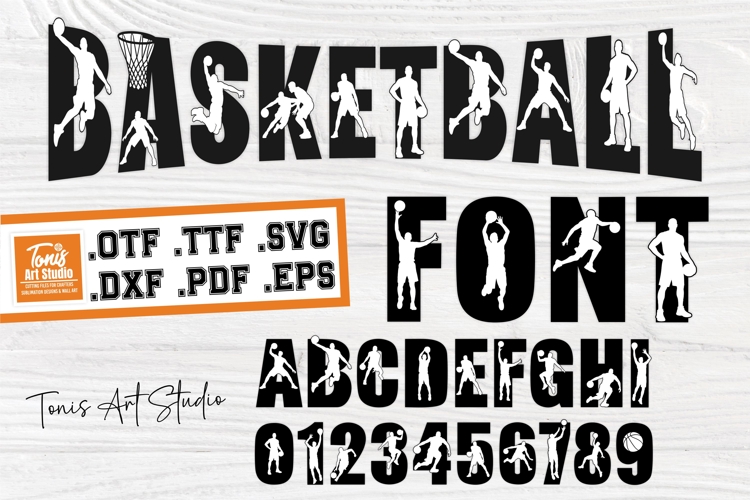
Basketball Font, Sport Alphabet with Player Silhouettes
A Dynamic Basketball Alphabet Font SVG OTF, inspired by the energy, motion, and excitement of the game. This bold athletic font features strong block letters filled with basketball player silhouettes in action, creating a powerful and sporty look. Perfect for basketball teams, kids room decor, sports apparel, jerseys, birthday signs, wall art, posters, and Cricut or Silhouette projects. The font is easy to use, highly readable. The digital download includes OTF and TTF installable fonts along with SVG, DXF, EPS, and PDF cut files.
✔ Basketball Alphabet Font with player silhouettes
✔ Full Alphabet (A–Z), Numbers (0–9) & Symbols
✔ Bold athletic letters with basketball action poses